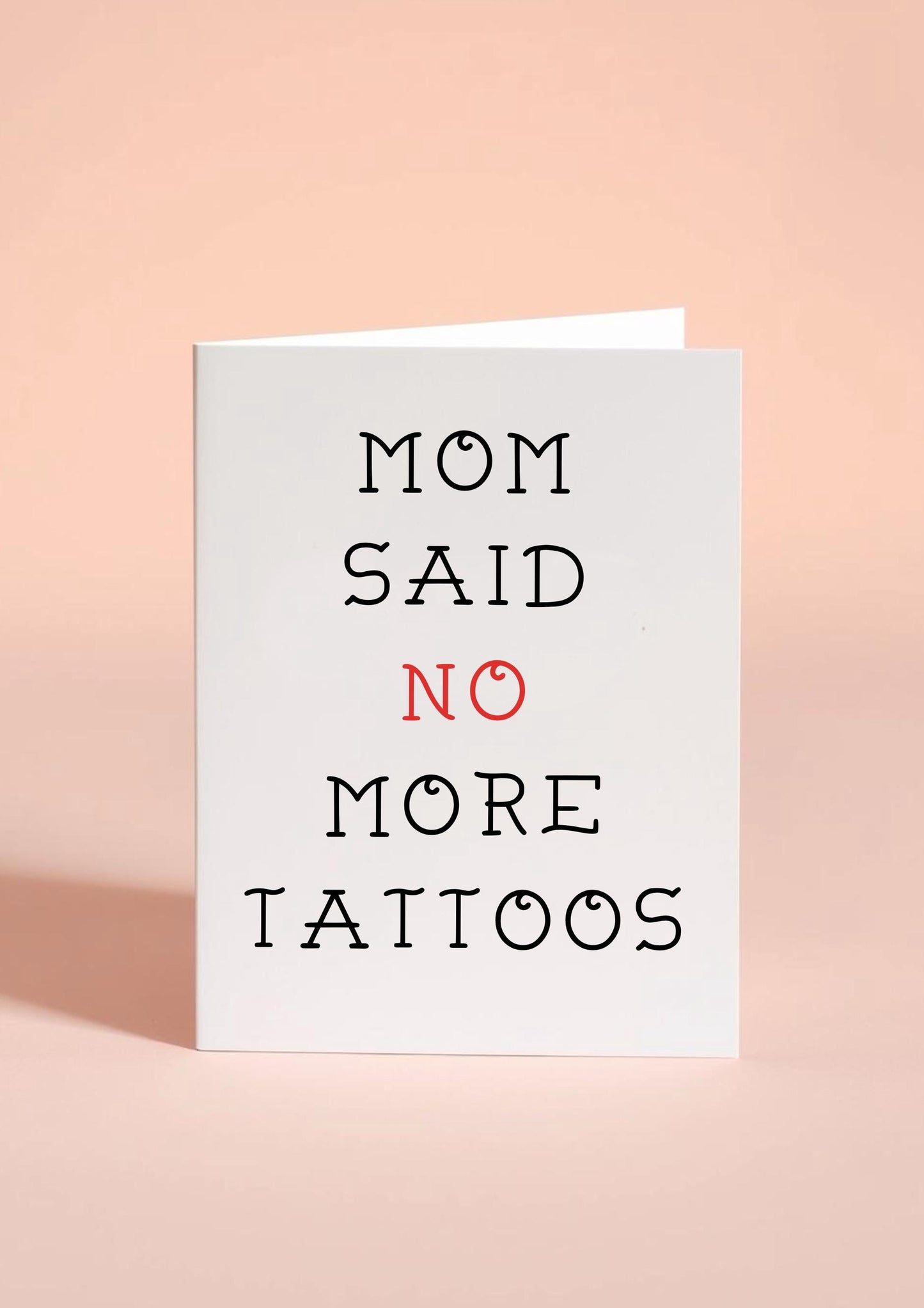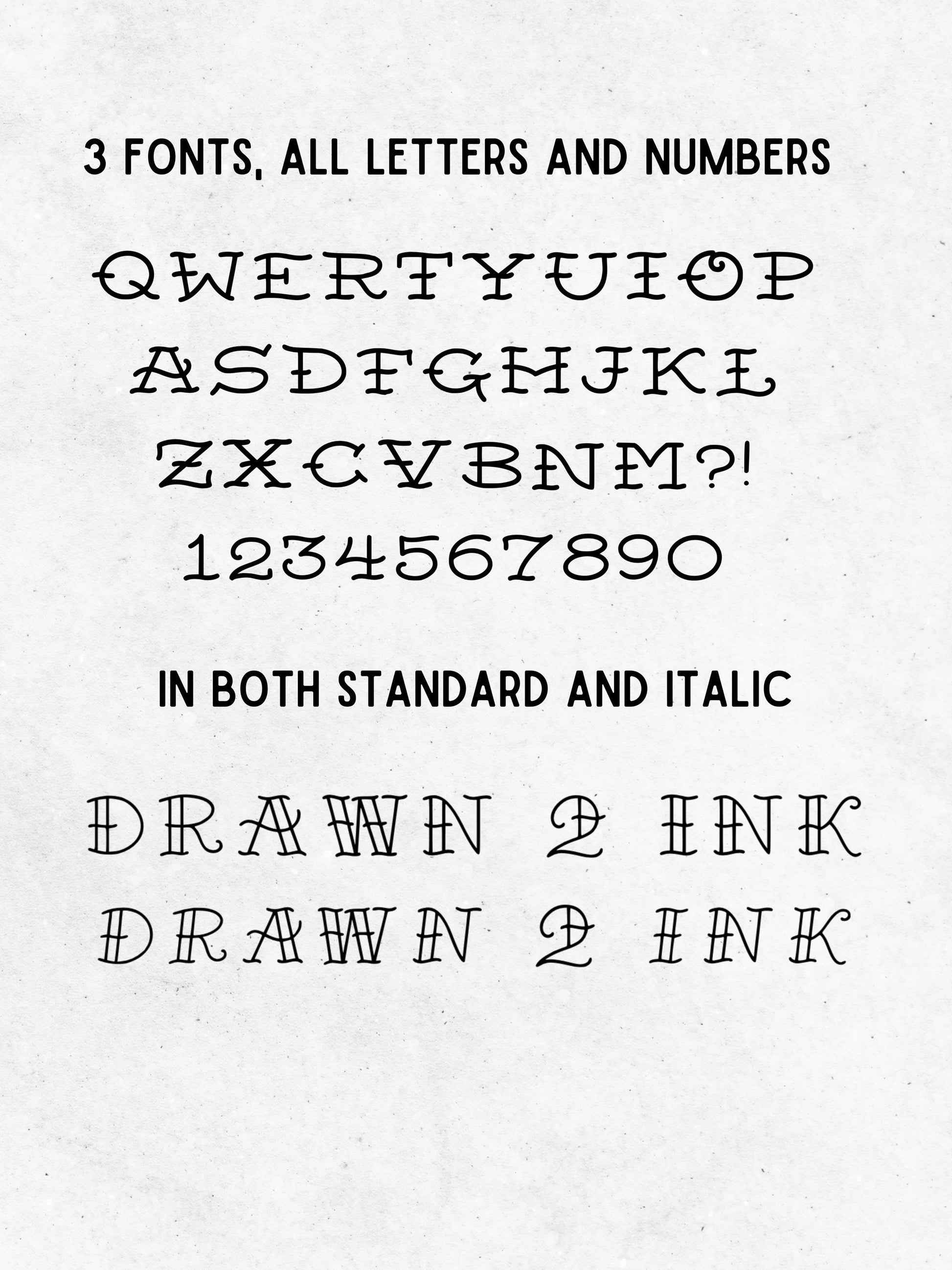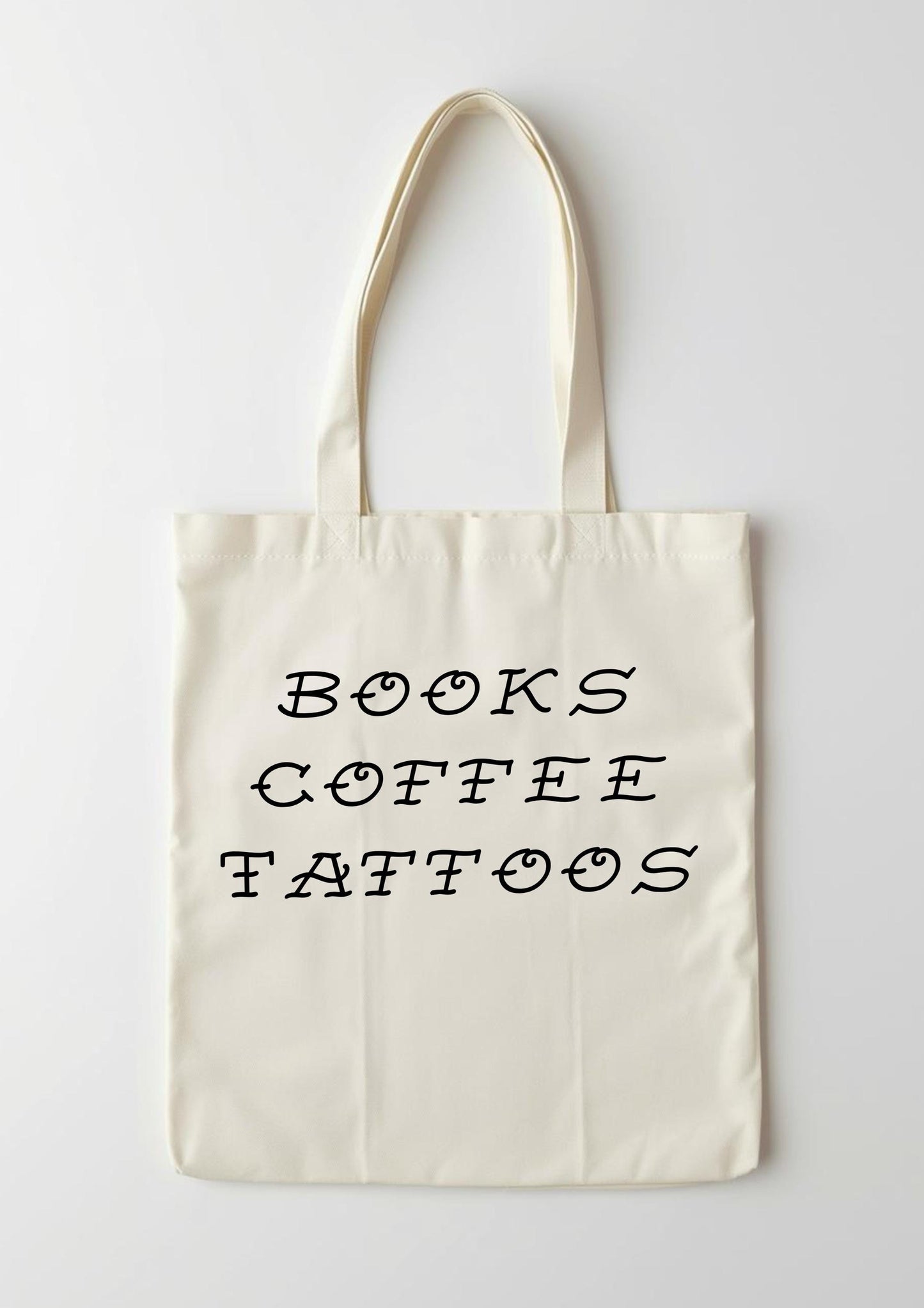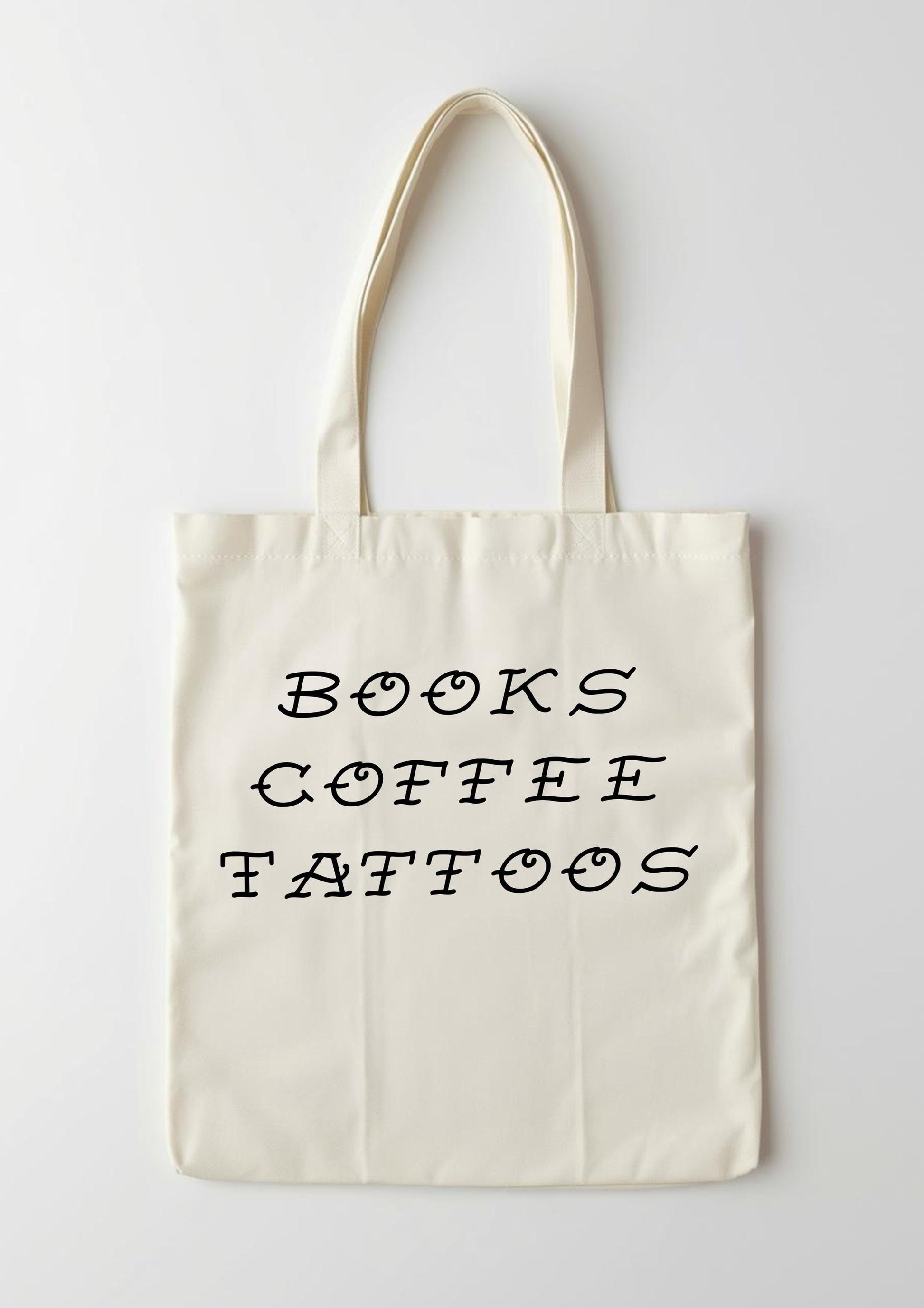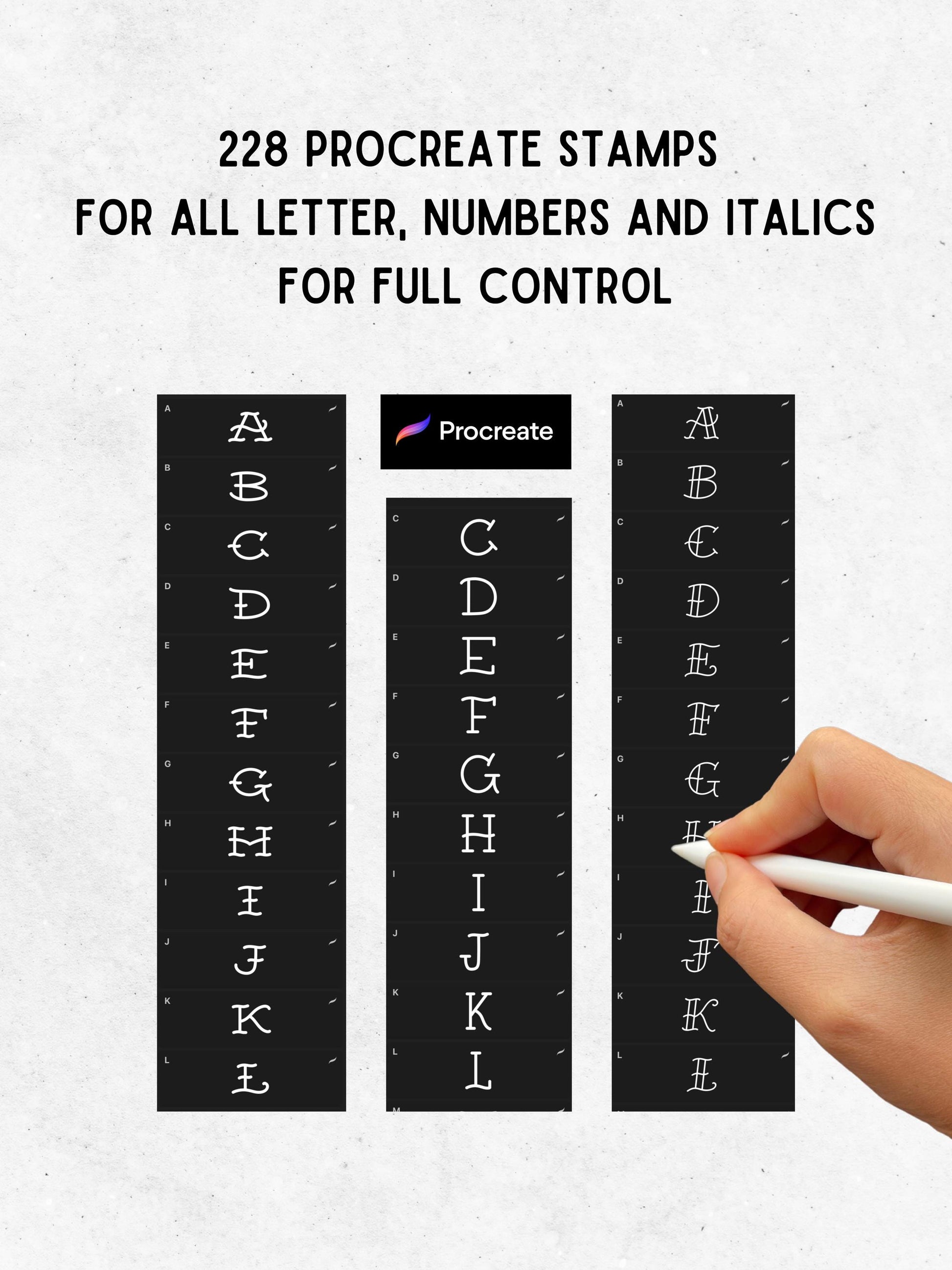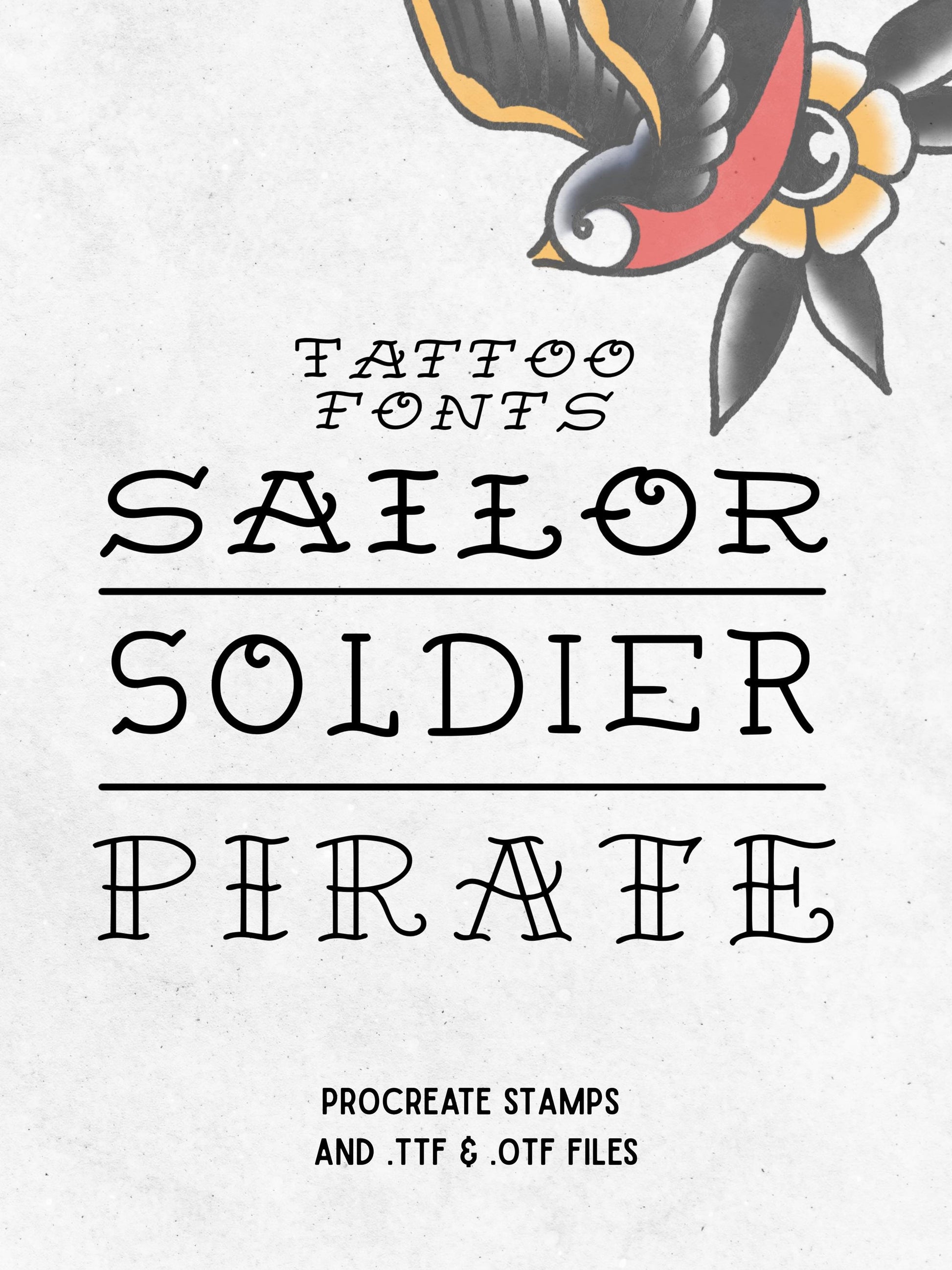
Bring the bold look of classic tattoo lettering into your designs with this tattoo style font pack. This set includes 3 unique tattoo fonts – Tattooed Sailor, Tattooed Soldier, and Tattooed Pirate – each designed to capture the timeless feel of traditional tattoo lettering. Perfect for tattoo flash sheets, Procreate designs, posters, apparel, or custom logo work, these fonts give your projects that authentic inked-in vibe.
3 Tattoo Fonts: Tattooed Sailor, Tattooed Soldier, Tattooed Pirate
Italic versions included (triggered by upper/lowercase for smooth switching)
Designed with traditional tattoo lettering in mind
Ideal for tattoo artists, designers, and creatives who want a bold, old-school font style
Tattoo flash designs & stencils
Custom posters & prints
Logos, branding & merch
Digital art in Procreate or other design apps
Give your artwork a bold, timeless edge with this tattoo lettering font bundle. Whether you’re a tattoo artist, designer, or hobbyist, you’ll have everything you need to create standout designs with authentic ink-inspired typography.